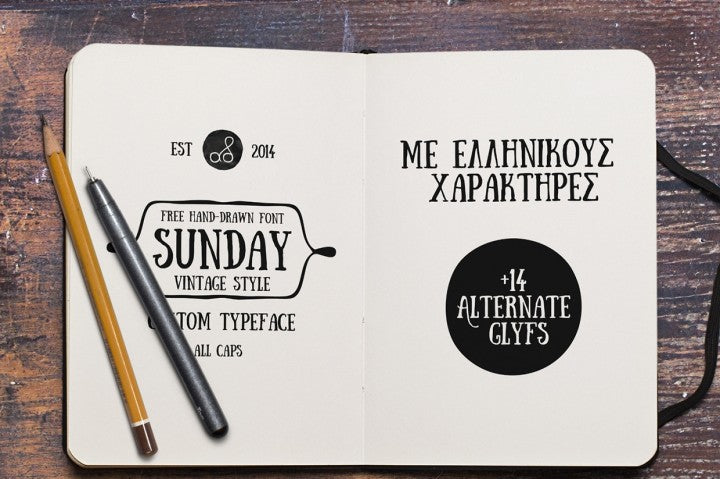
Free Font Sunday Typeface
Download and enjoy this free font sunday typeface. Cool typeface to showcase your designs in a modern way. This is a downloadable free font file brought to you by The Hungry JPEG. Amaze your fellow designers and create stunning designs with this beautiful font.